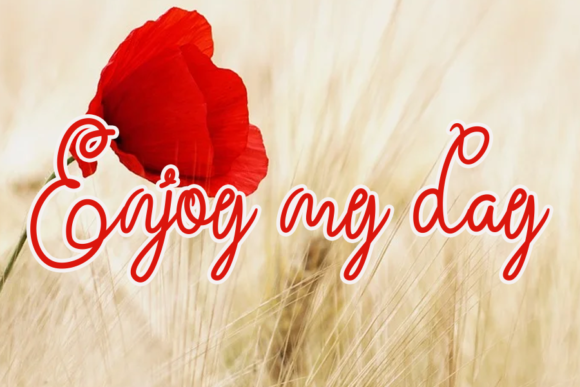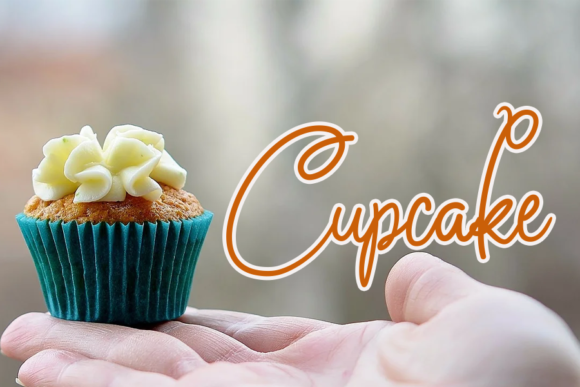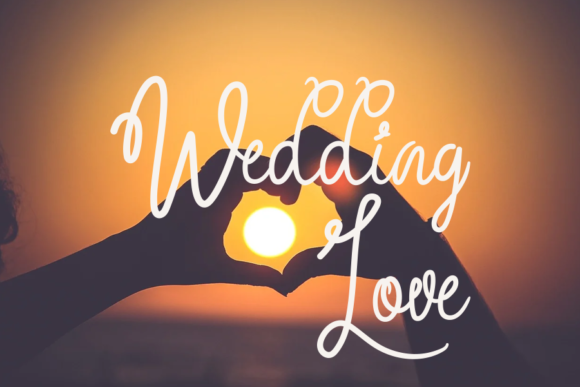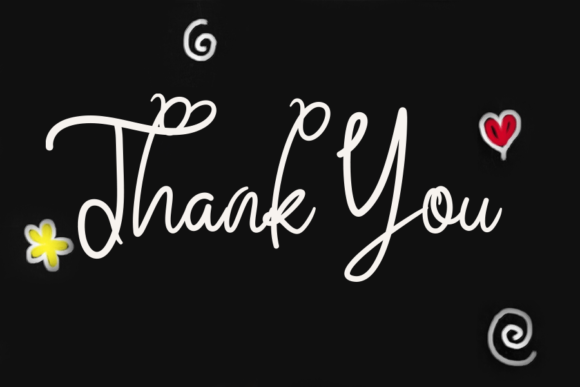
Butter Valentine Font
About Butter Valentine Font
Butter Valentine is a delightful and whimsical handwritten font that exudes a romantic and playful charm. Its unique style makes it a perfect fit for various design projects, adding a touch of sweetness and creativity. Here are some of the ways Butter Valentine can enhance your designs:
1. Wedding Invitations: Butter Valentine brings a touch of romance and whimsy to wedding invitations. Its flowing and charming letters create a dreamy atmosphere, making it perfect for setting the tone for a lovely wedding celebration.
2. Thank You Cards: Express your gratitude with a touch of whimsy using Butter Valentine on thank you cards. Its playful and heartfelt look adds a warm and genuine touch to your messages of appreciation.
3. Quotes and Greeting Cards: Butter Valentine adds a joyful and lighthearted vibe to quotes and greeting cards. Use it to showcase inspiring or heartfelt messages, making them even more delightful and memorable.
4. Logos and Business Cards: For businesses or brands seeking a unique and playful logo, Butter Valentine can be a great choice. It creates a distinctive and approachable brand identity that leaves a positive impression on customers.
5. Social Media Graphics: Whether for personal use or promoting your brand, Butter Valentine adds a whimsical and artistic touch to social media posts and graphics. It helps your content stand out and engages your audience with its cheerful nature.
6. Crafts and DIY Projects: Butter Valentine is perfect for crafty projects like DIY cards, scrapbooking, and home decor. Its playful and creative nature allows you to infuse your projects with a sense of joy and imagination.
7. Personalized Stationery: Create charming personalized stationery with Butter Valentine. Whether it’s notepads, envelopes, or stickers, the font adds a touch of sweetness to your everyday correspondence.
8. Websites and Blog Graphics: Use Butter Valentine to add a playful touch to your website or blog graphics. Its romantic and whimsical style can create a warm and inviting atmosphere for your online platform.
Overall, Butter Valentine is a romantic and whimsical handwritten font that can add a touch of charm and playfulness to a wide range of designs. From wedding invitations to social media graphics and DIY projects, embrace Butter Valentine’s unique and delightful style to make your designs truly enchanting.